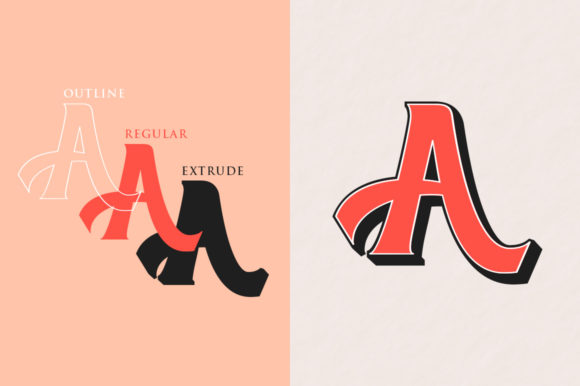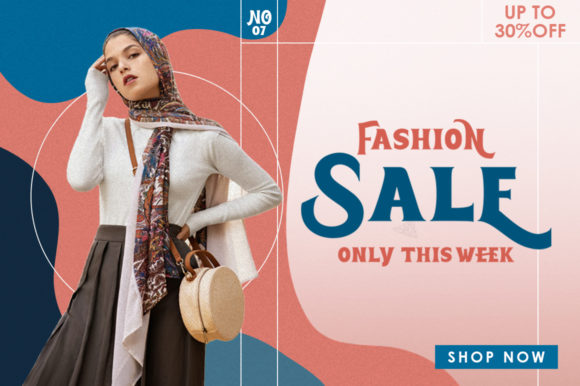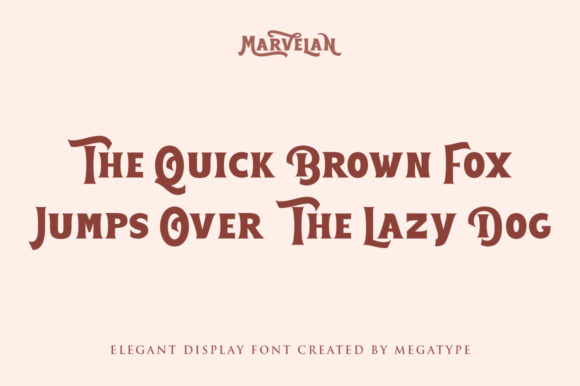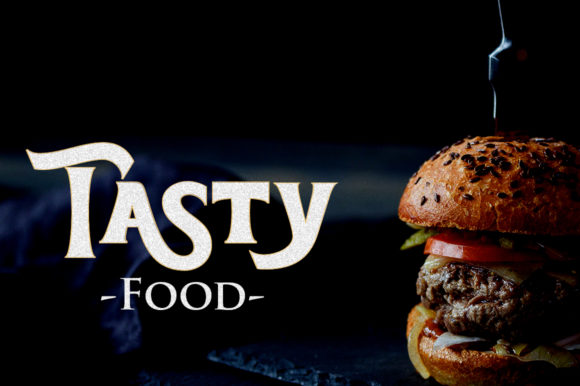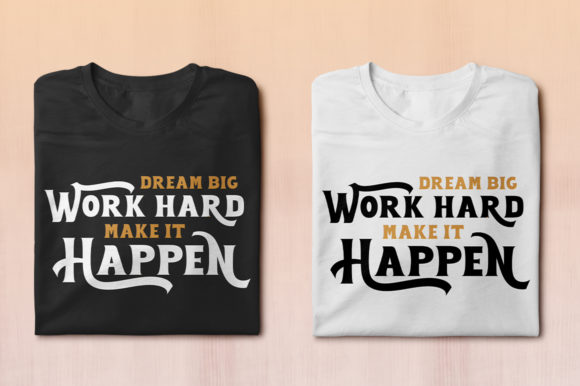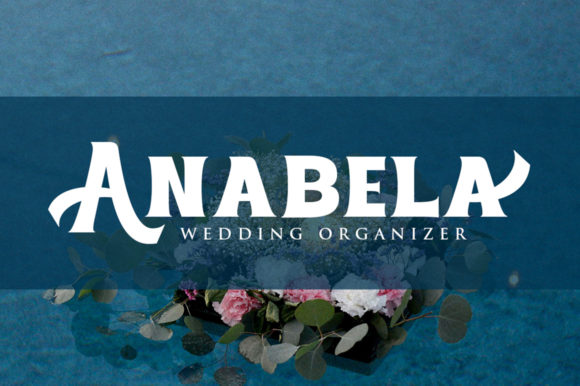
Introduction to Marvelan Font
Imagine strolling through a bustling art fair, surrounded by vibrant colors and eclectic designs. As you scan the stalls, one display catches your eye – a striking poster that demands attention with its bold, eye-catching font. The Marvelan Font is more than just a pretty face; it’s a design game-changer that can elevate any creative project from good to great.
For designers, having access to high-quality design resources like the Marvelan Font is invaluable. This unique display font offers a transparent background, making it perfect for product packaging, invitations, and logos that require a touch of sophistication. Whether you’re working on a branding project or creating a custom label, the Marvelan Font is a versatile design tool that can help you achieve your creative vision.
Key Features of Marvelan Font
- High-quality design with a transparent background, making it ideal for creative projects.
- Unique characteristics include its elegant and modern style, making it suitable for a wide range of creative projects.
- Perfect for designers working on projects that require a high-quality, professional font with a transparent background.
I recently stumbled upon the Marvelan Font, and I must say it’s been a game-changer for my creative projects. This high-quality font is perfect for designers who want to add a touch of elegance and sophistication to their work.
What I like most about Marvelan Font is its versatility. Whether you’re working on a logo, a poster, or a business card, this font is sure to impress. The clean and modern design makes it perfect for a wide range of creative projects.
My only gripe is that the font selection is limited. I wish there were more options to choose from, but overall, Marvelan Font is a great addition to any designer’s toolkit.
Overall impression: I’m thoroughly impressed with Marvelan Font. It’s a great design resource that’s perfect for anyone looking to elevate their creative projects. Whether you’re a seasoned designer or just starting out, this font is definitely worth checking out.
For optimal results, use the Marvelan Font on a transparent background to achieve a clean and modern look. Experiment with different font sizes and styles to add depth to your design.
The Marvelan Font is perfect for use in creative projects such as logos, posters, and social media graphics. Its unique design makes it ideal for adding a personal touch to your design work.
Comparison to Marvelan Font: While both fonts have a handwritten feel, the Alex Brush Font is more elegant and refined, making it suitable for high-end design projects. It lacks the playful, cursive feel of the Marvelan Font.